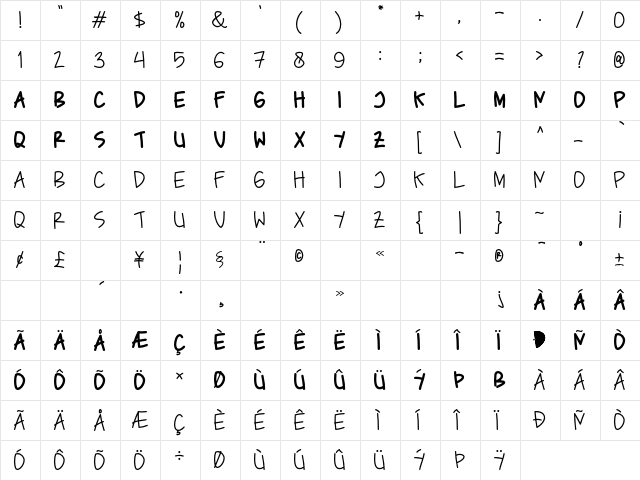
Caferesto Regular
Design Context for Caferesto Typeface
Caferesto is a composed and adaptable typeface that performs quietly and consistently across a wide range of design contexts.